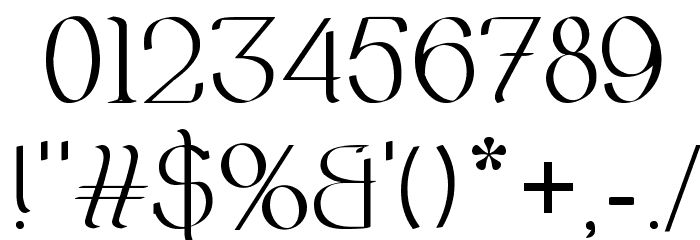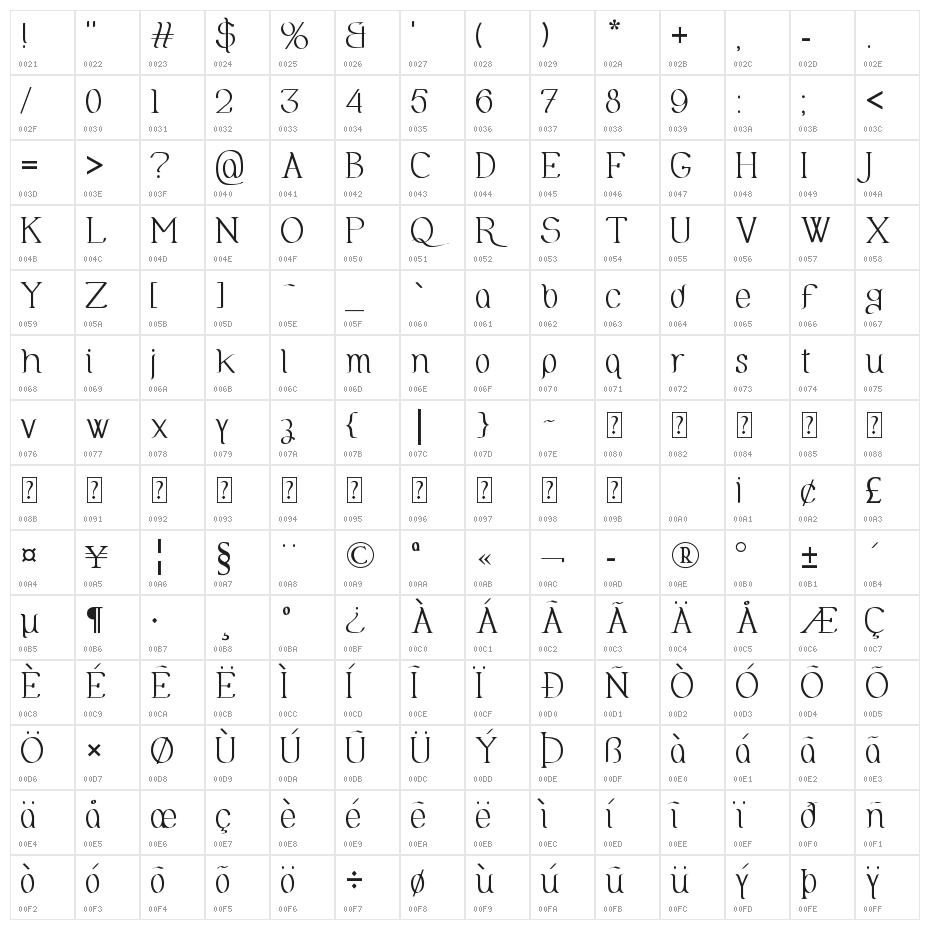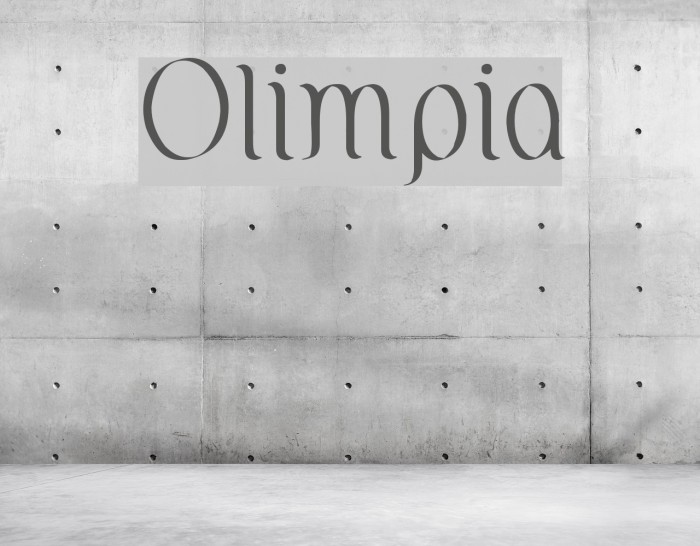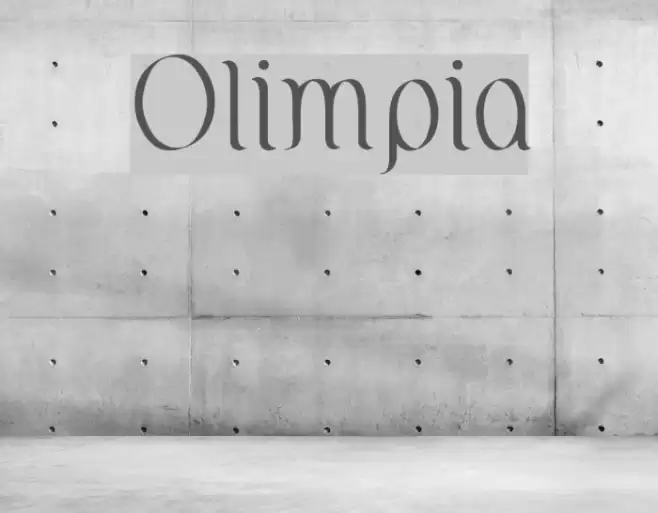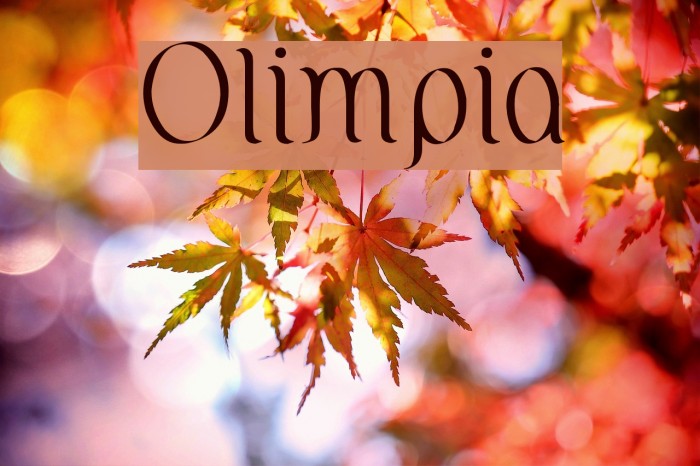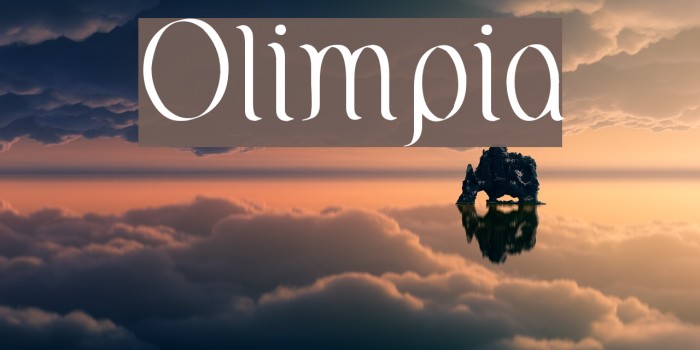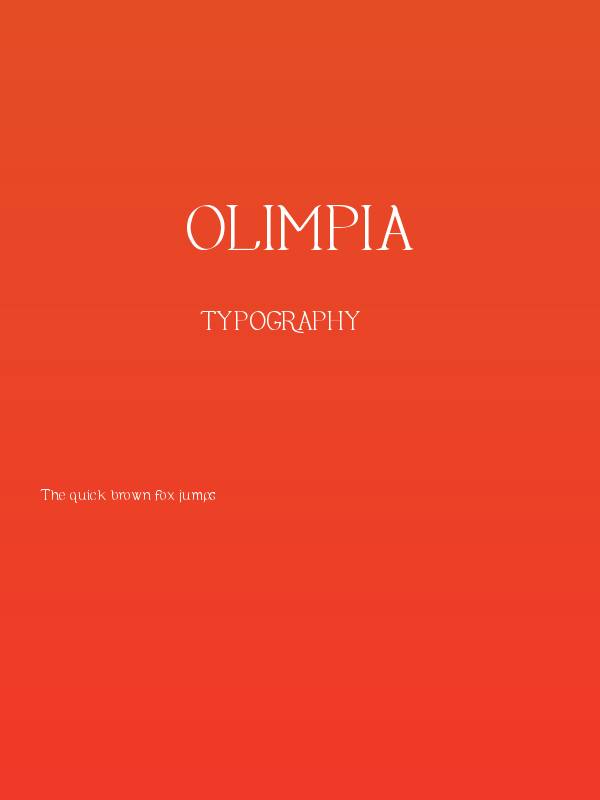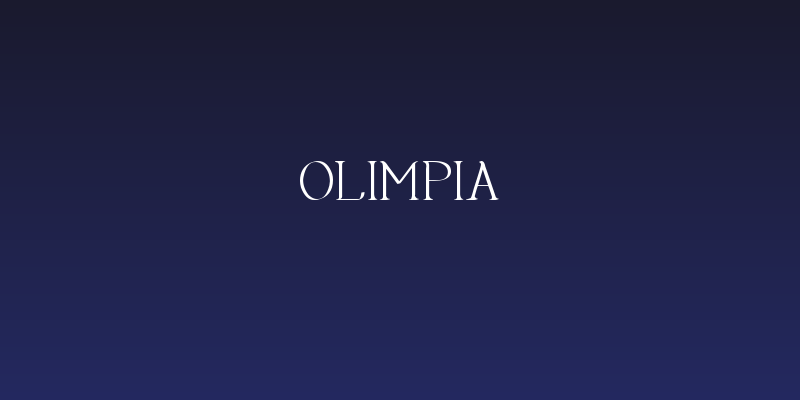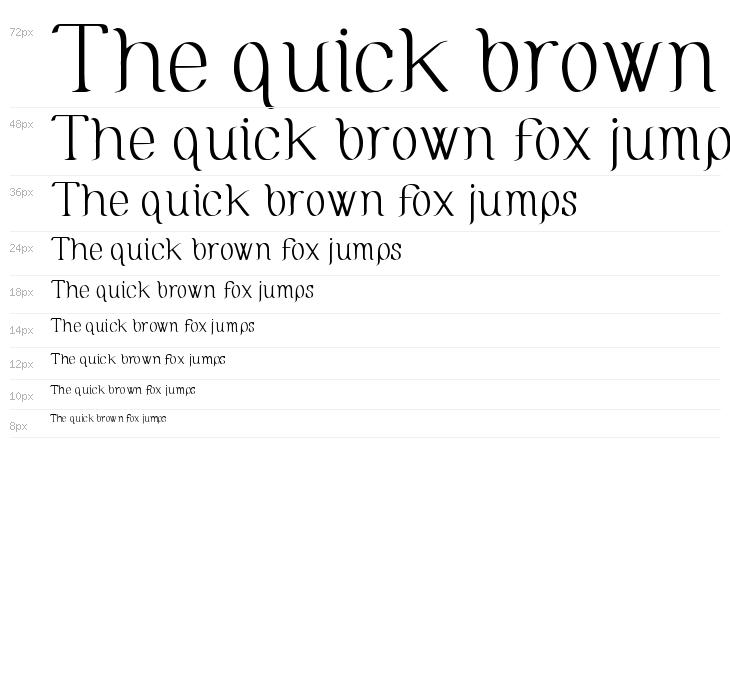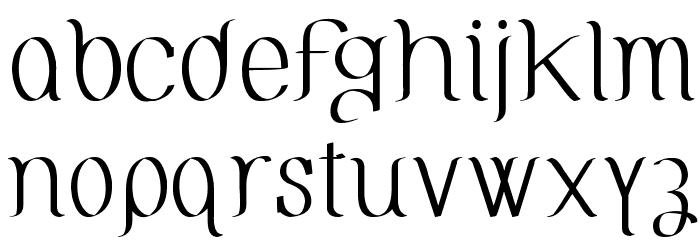
Olimpia Font
Olimpia Description
This font features a unique blend of classic and modern elements, characterized by its elegant curves and distinct serifs. The uppercase letters exhibit a sophisticated flair with subtle variations in stroke thickness, giving them a dynamic appearance. The lowercase letters maintain a consistent style, with smooth, flowing lines that enhance readability. Numbers are designed with a balanced proportion, ensuring clarity and legibility. Special characters are crafted with attention to detail, complementing the overall aesthetic. The font's design is versatile, suitable for both digital and print media, making it an excellent choice for a wide range of applications.
| Proposed Projects | Ideal for branding, editorial design, invitations, and luxury product packaging. |